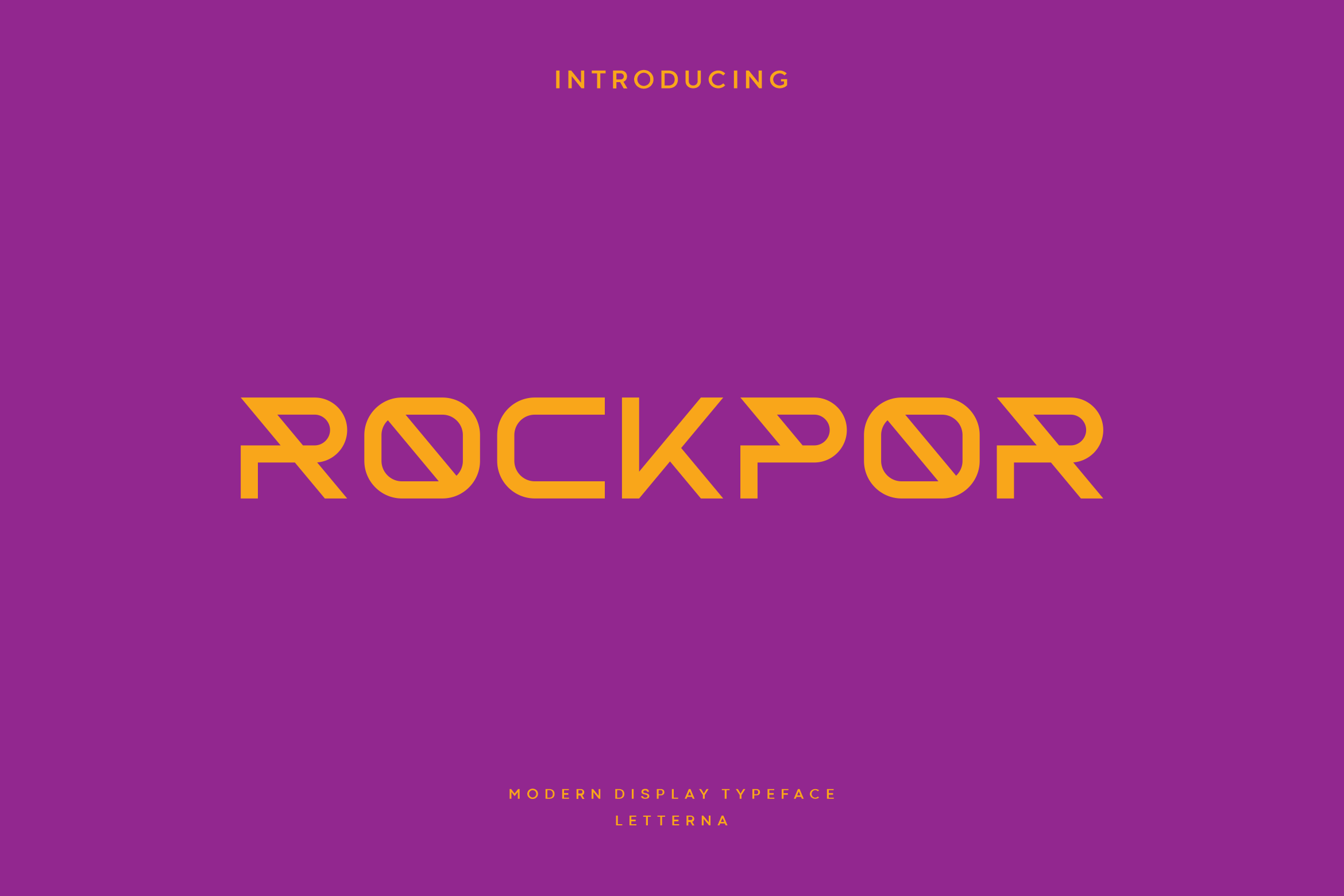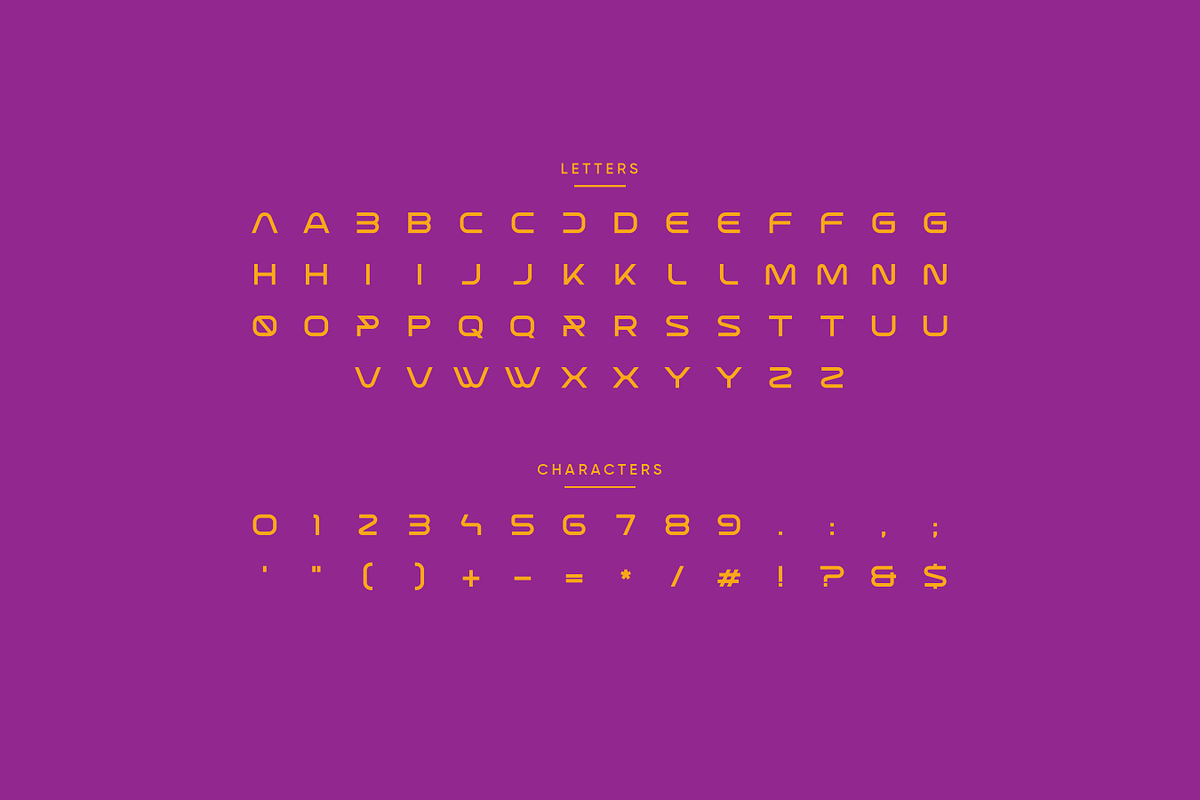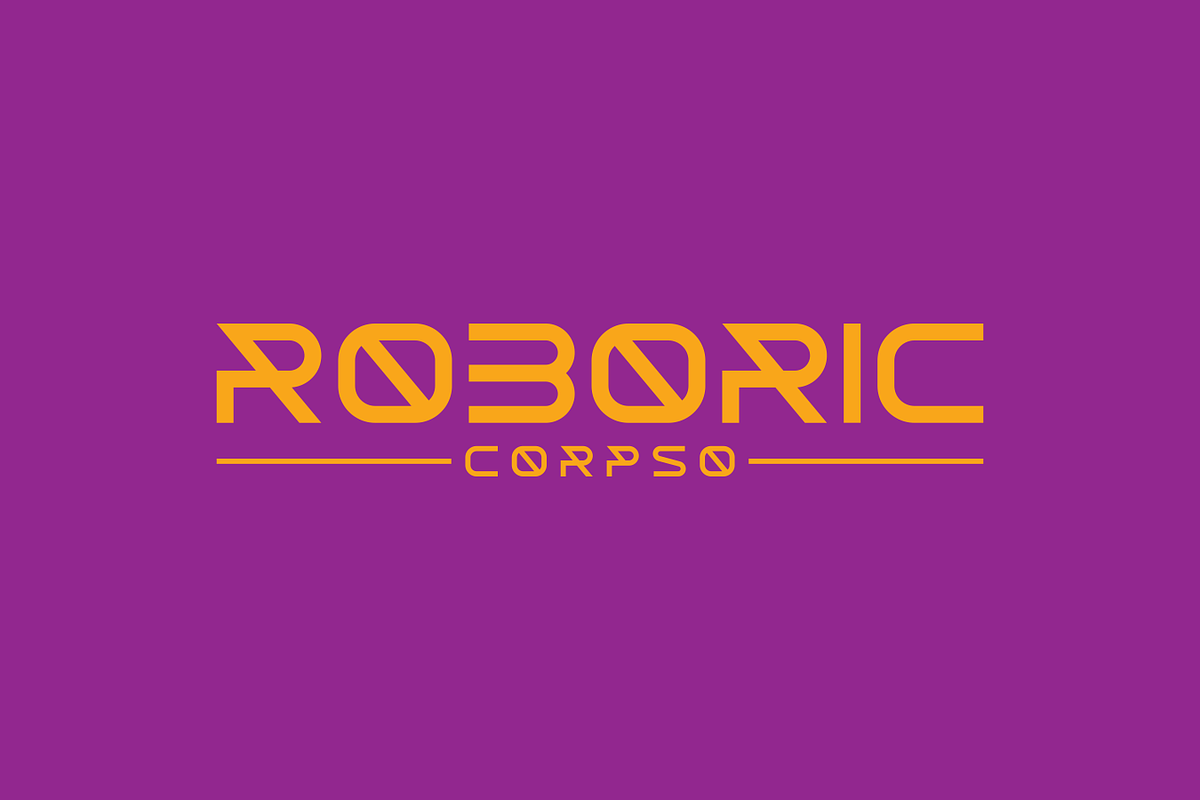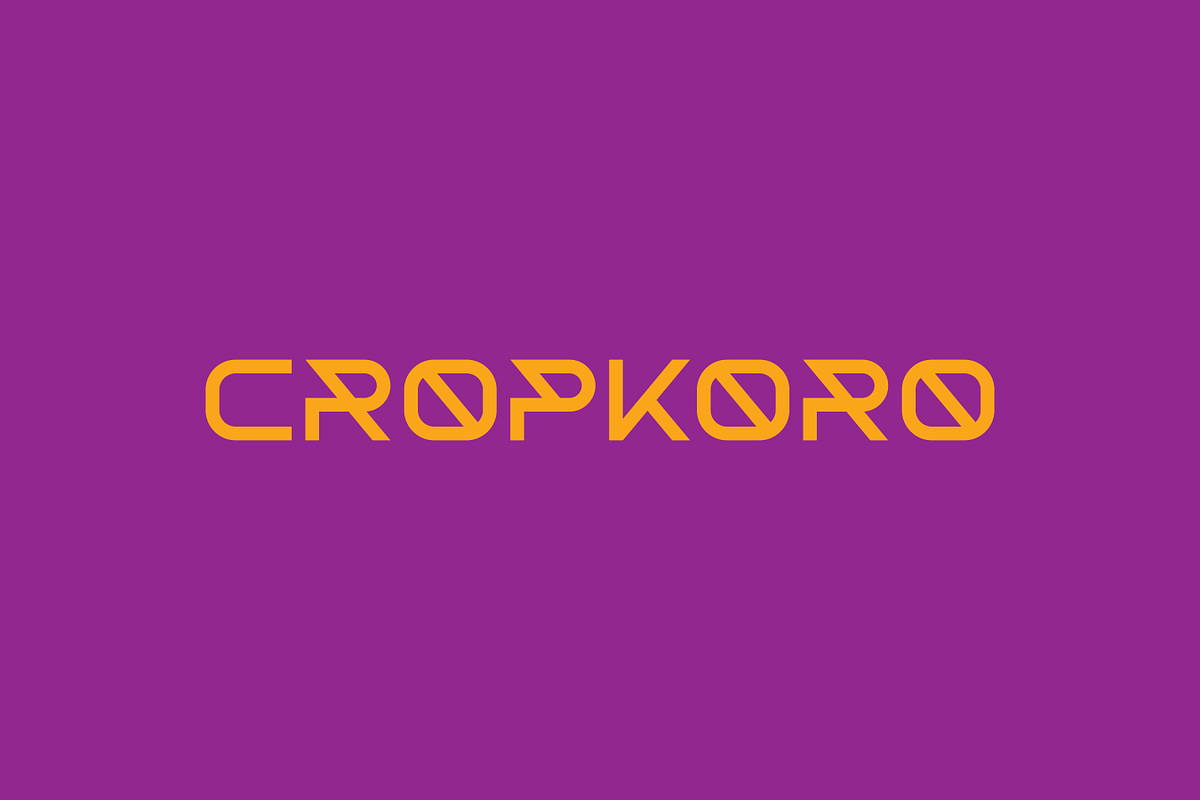
Rockpor - Modern Futuristic Typeface
Rockpor is a clean and modern sans serif font, coming in very sophisticated all-caps. The smooth and light execution makes this font look sleek and elegant which is perfect for futuristic and future branding designs. It can easily be adapted to a very large set of projects, so add it to your creative ideas and watch how it makes it stand out!